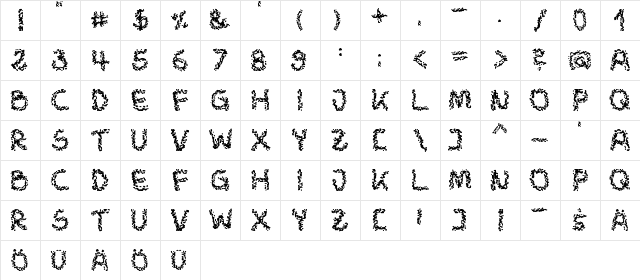
Love is like dirt Regular
Design Context for Love is like dirt Typeface
Love is like dirt is a composed and adaptable typeface that performs quietly and consistently across a wide range of design contexts.
Pro Tip: Use Love is like dirt in both headline and body roles to test its range before committing to a single application.